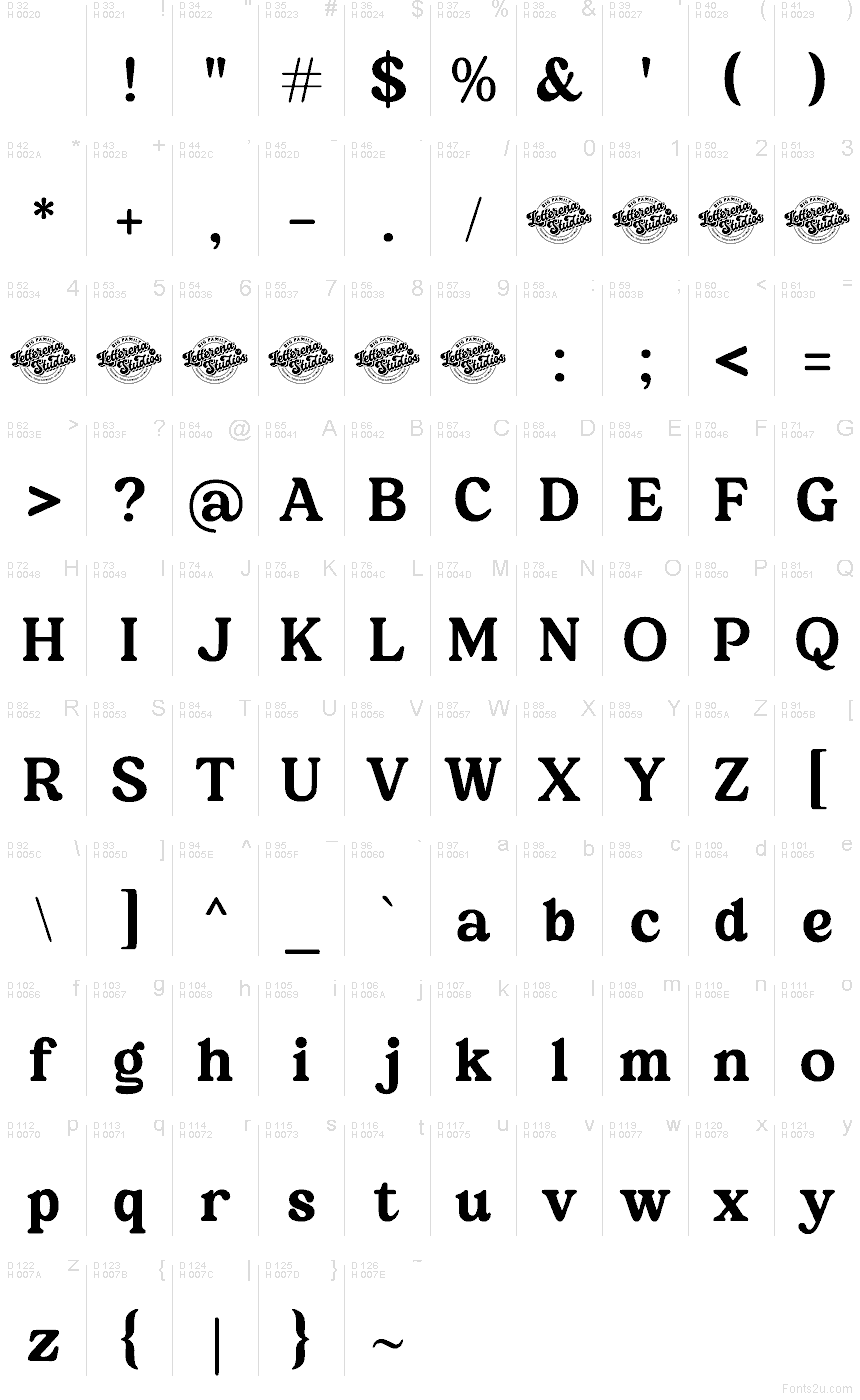
Martin Breaks font by Letterena Studios is a free serif typeface with a bold, inky presence and soft, rounded details that feel almost hand-printed. Its sturdy vertical strokes and generous curves give it a nostalgic, bookish warmth, while the chunky serifs keep each word grounded and easy to read. There’s a hint of vintage newspaper in its texture, but with a friendlier, more contemporary polish.
Using Martin Breaks, headlines and names feel substantial—like they’ve been stamped onto the page with conviction. This free font works beautifully for book covers, boutique branding, posters, packaging, logos, and editorial titles where you want character without chaos. Try pairing Martin Breaks at larger sizes with a clean geometric sans for body text to keep layouts balanced and readable.